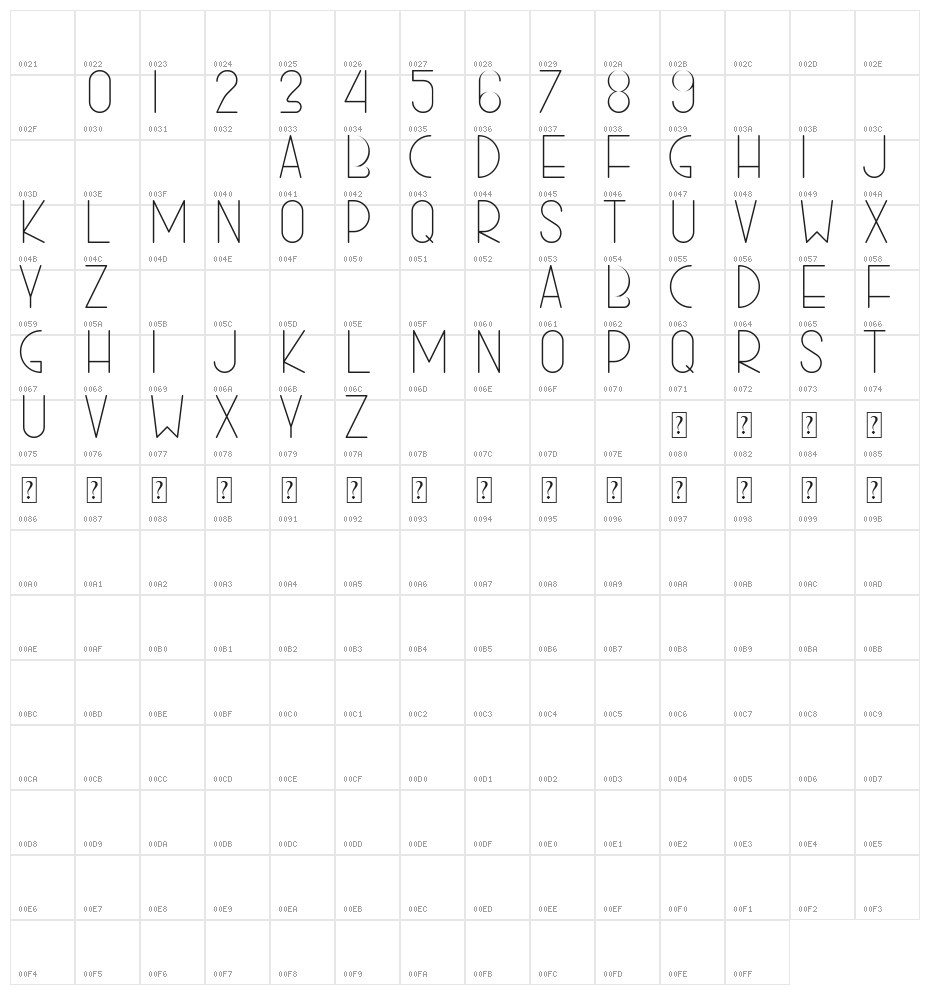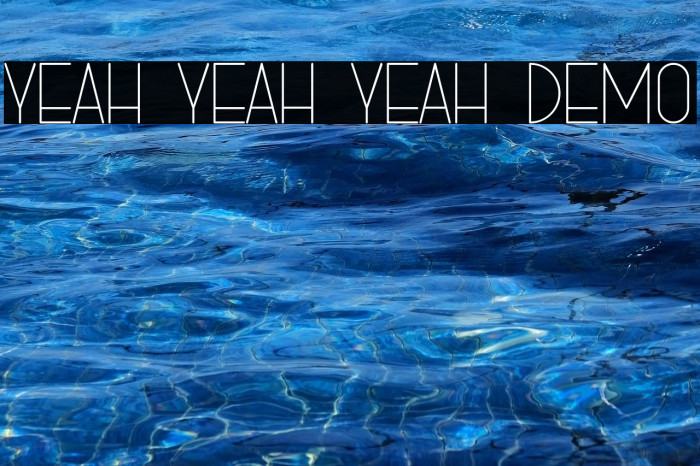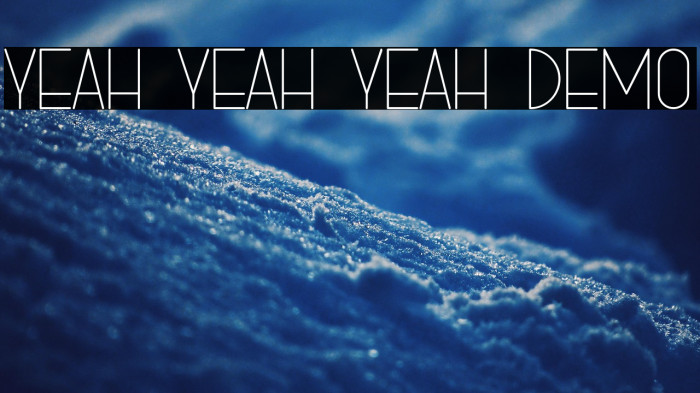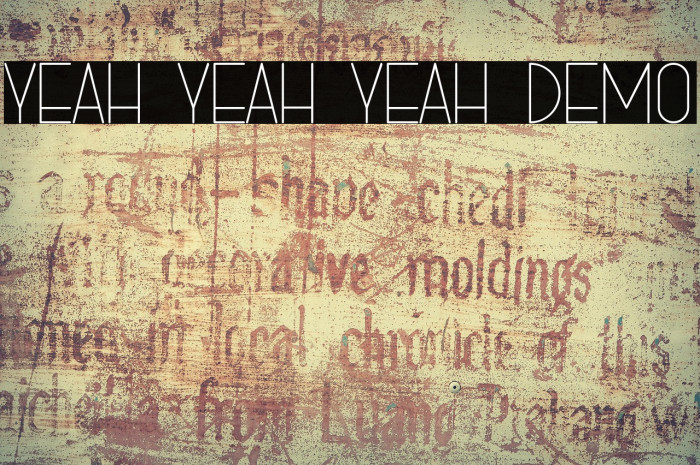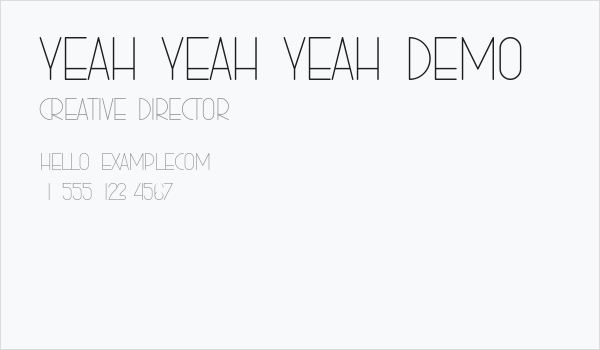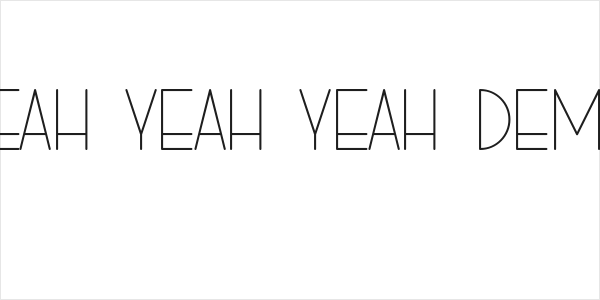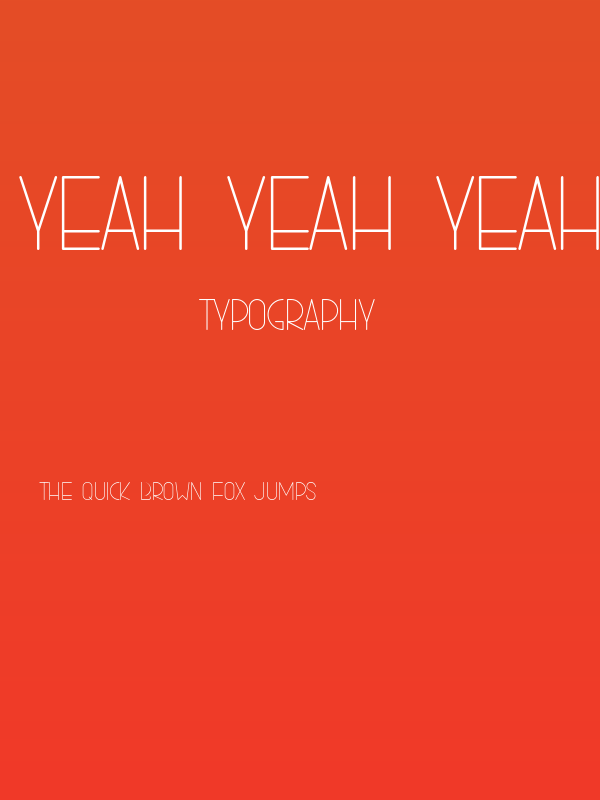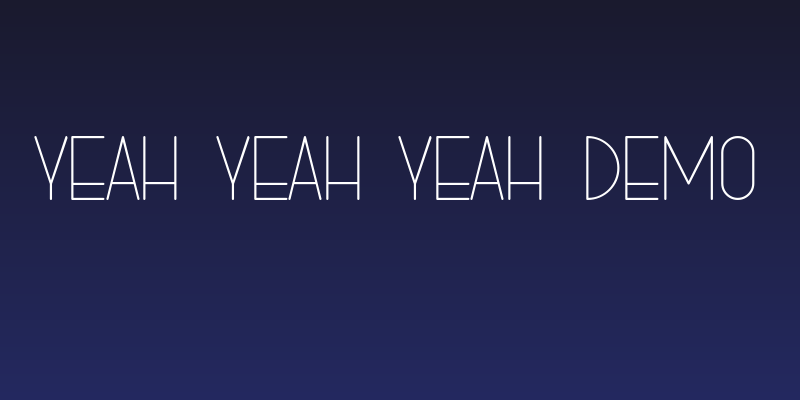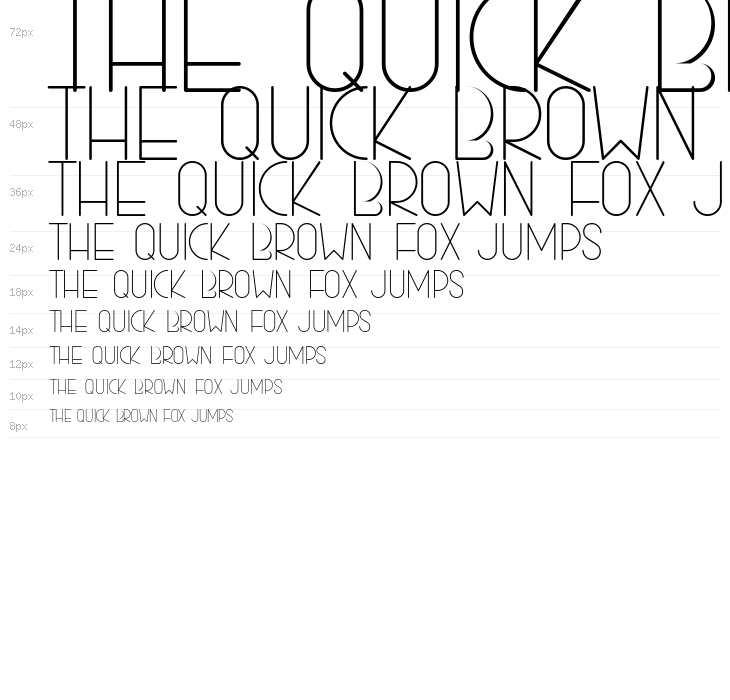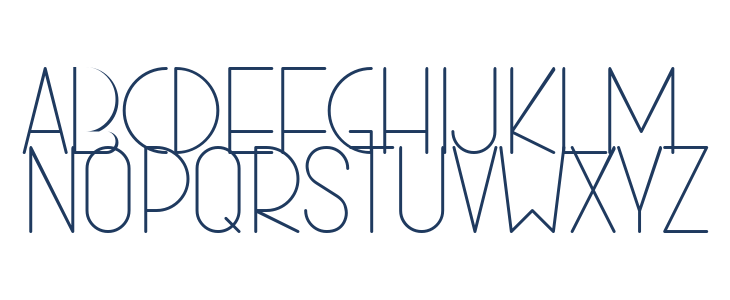
YEAH YEAH YEAH DEMO Font
YEAH YEAH YEAH DEMO Description
This font features a modern and sleek design with a geometric structure. The characters are composed of clean, straight lines and curves, creating a minimalist aesthetic. The uppercase letters are tall and narrow, while the lowercase letters maintain a consistent height, contributing to a uniform appearance. The numerals are distinct and align well with the overall style, ensuring readability. The special characters are designed to match the font's contemporary look, making it suitable for various applications.
| Proposed Projects | Ideal for branding, logos, posters, and digital media where a modern and clean look is desired. |